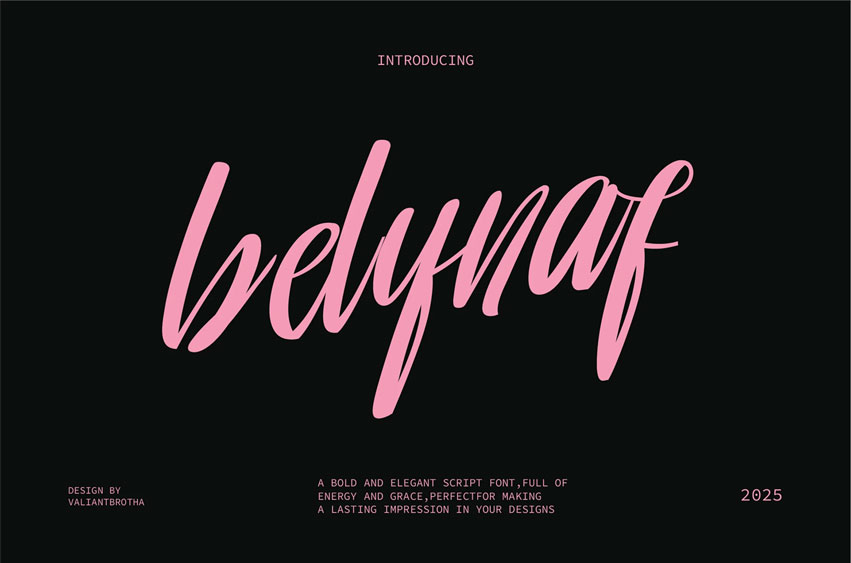
Belynaf Font is a bold and elegant script font that combines dynamic energy with graceful curves. Its fluid, flowing strokes make it perfect for designs that need to stand out and leave a lasting impression.